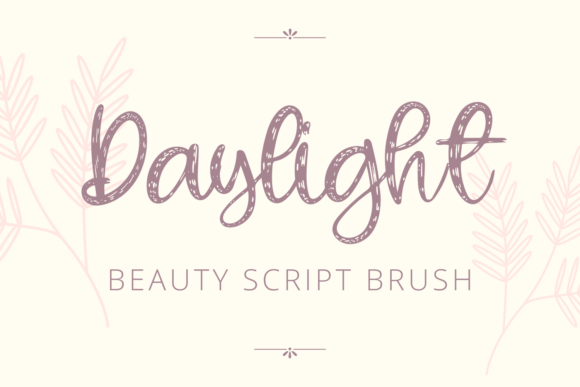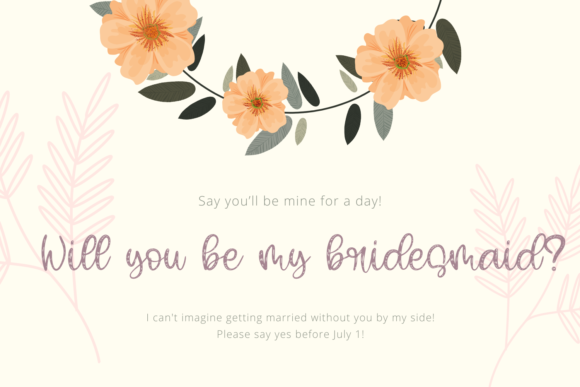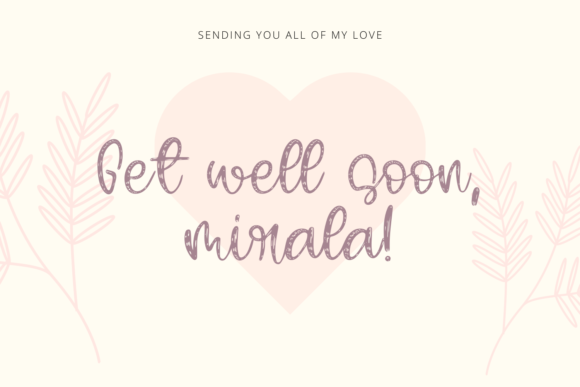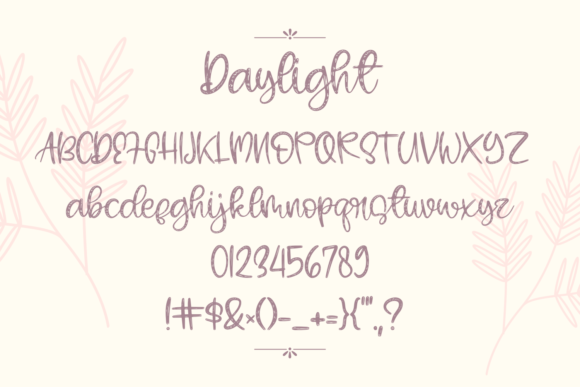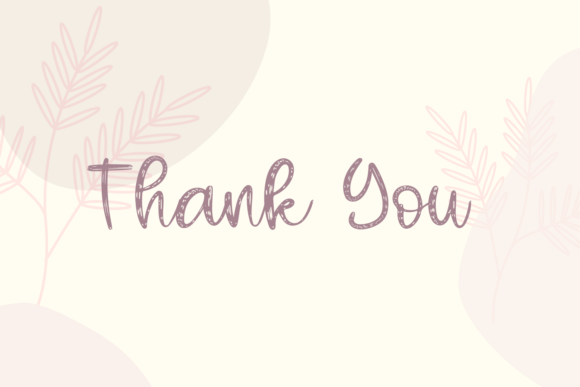
Daylight Font
About Daylight Font
Daylight is handwritten brush font, featuring a light weight. It will add a luxury spark to any design project that you wish to create! Fall in love with its incredibly versatile style and use it to create spectacular designs!